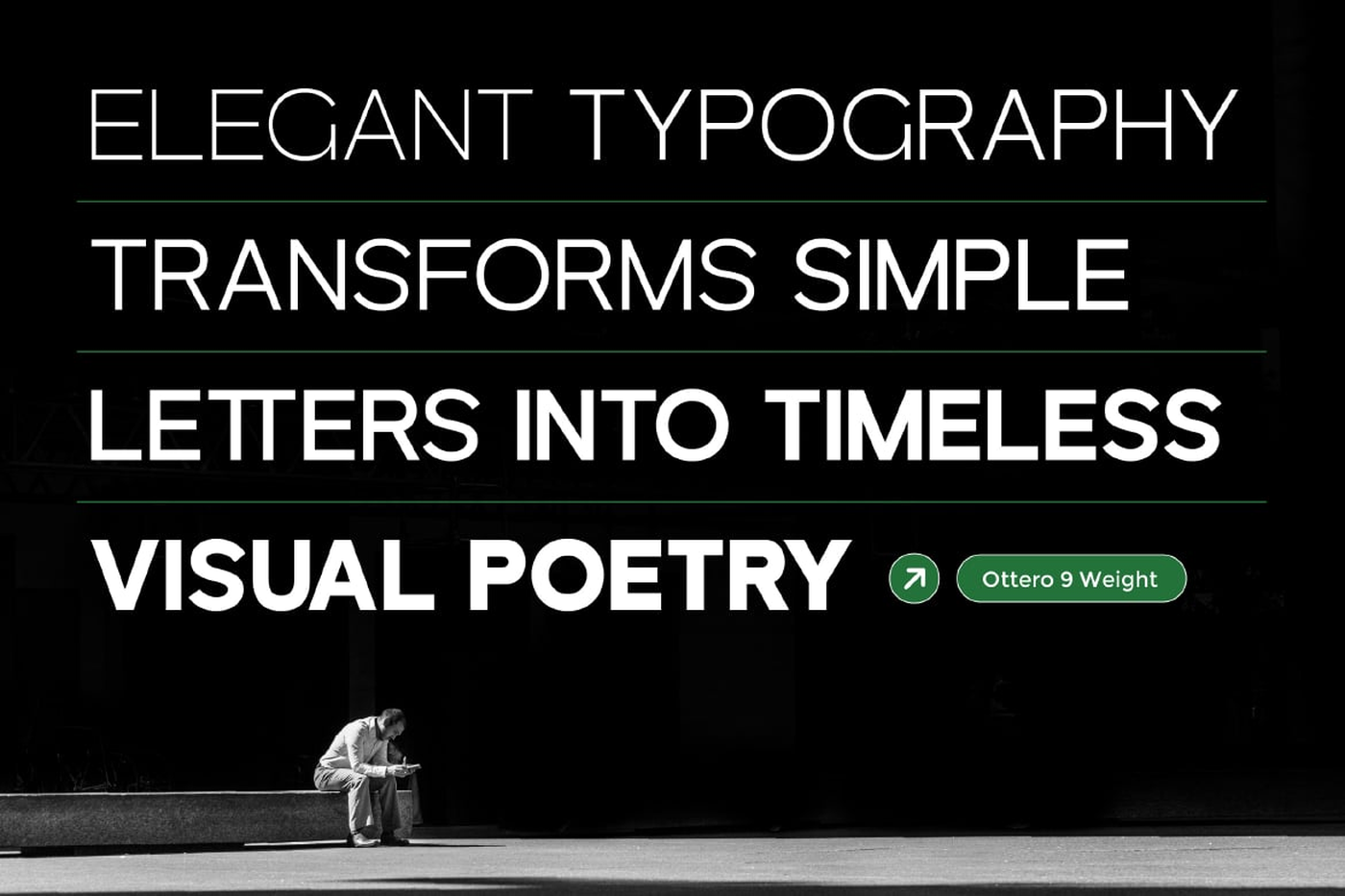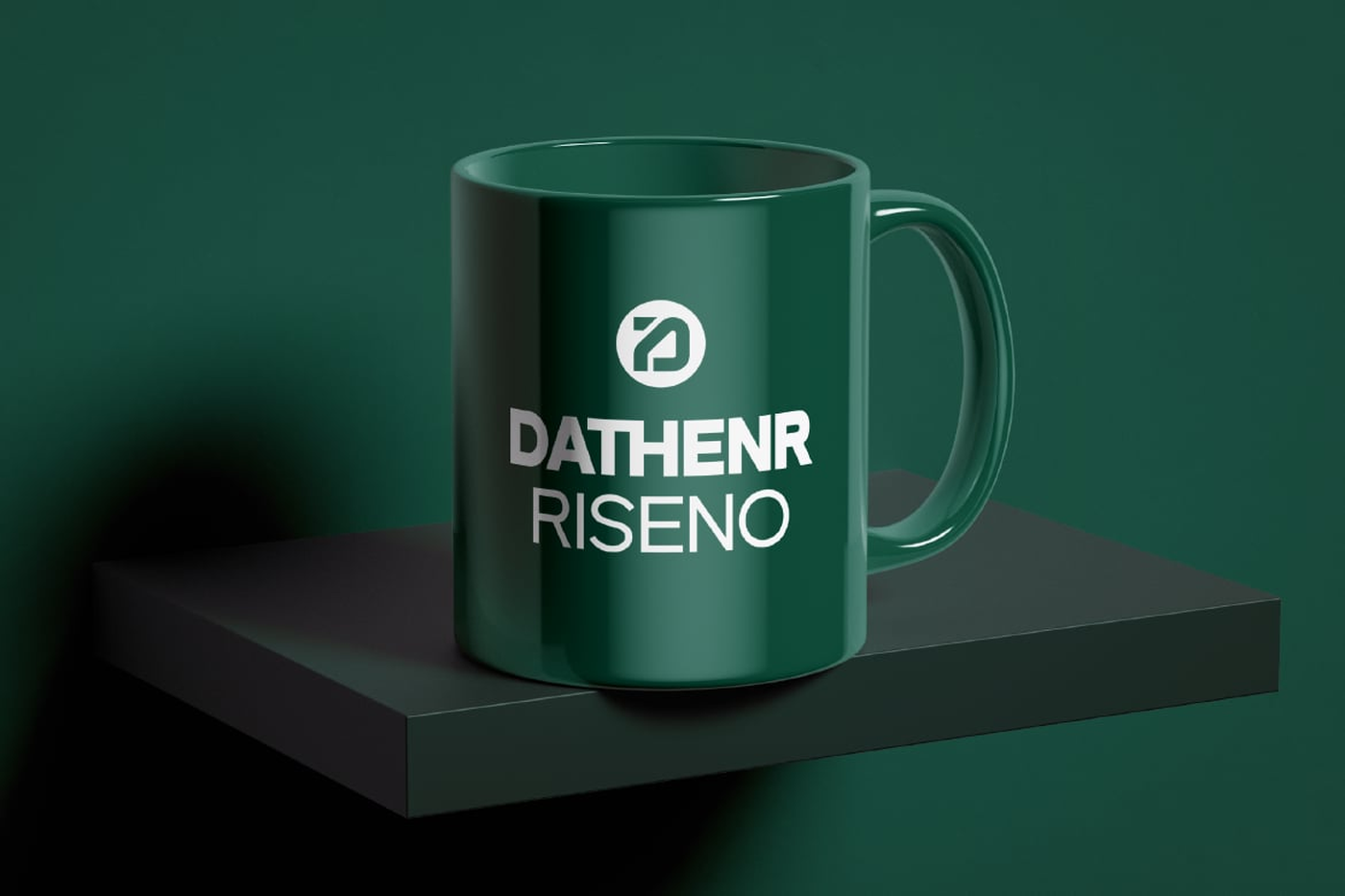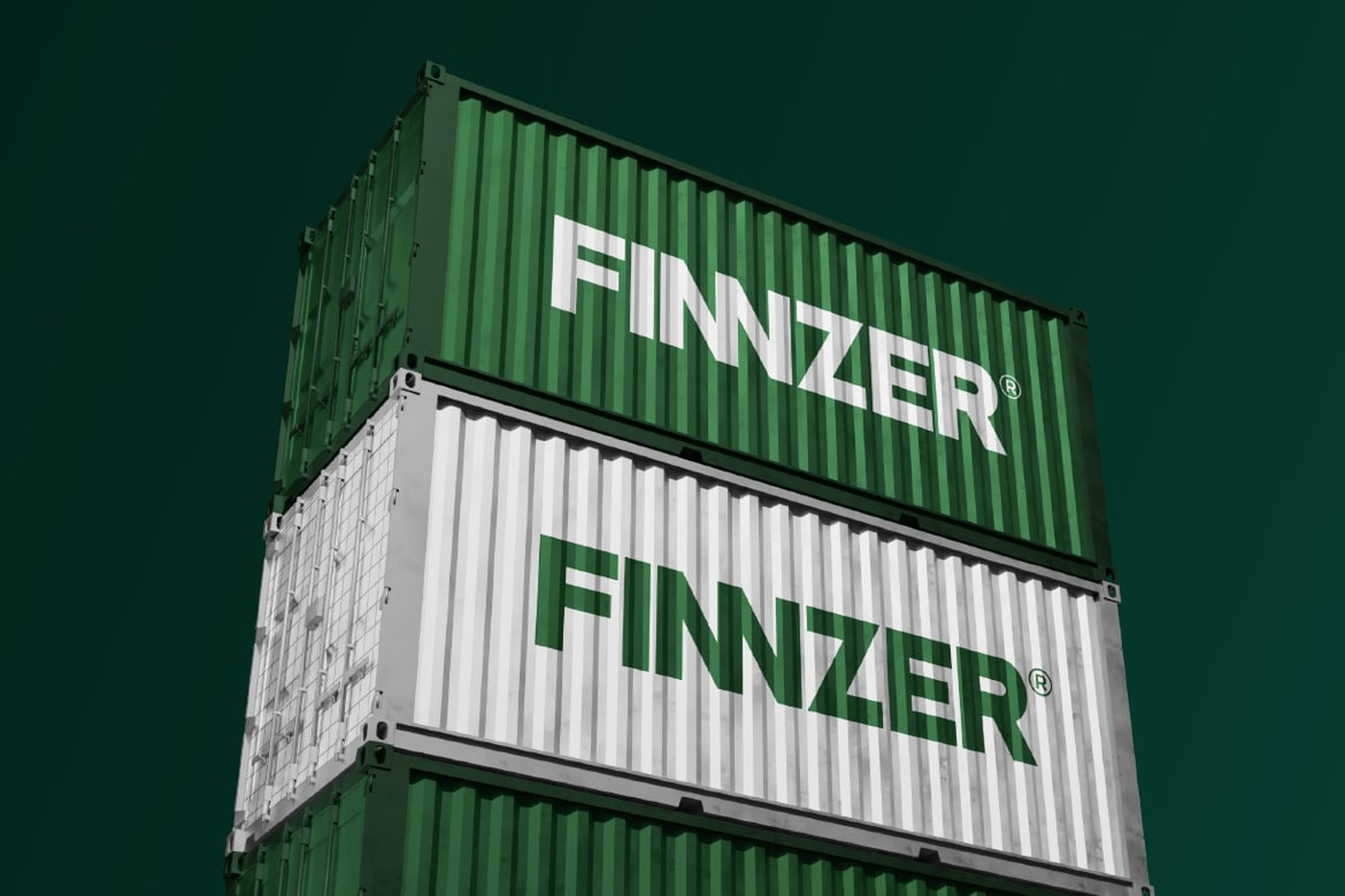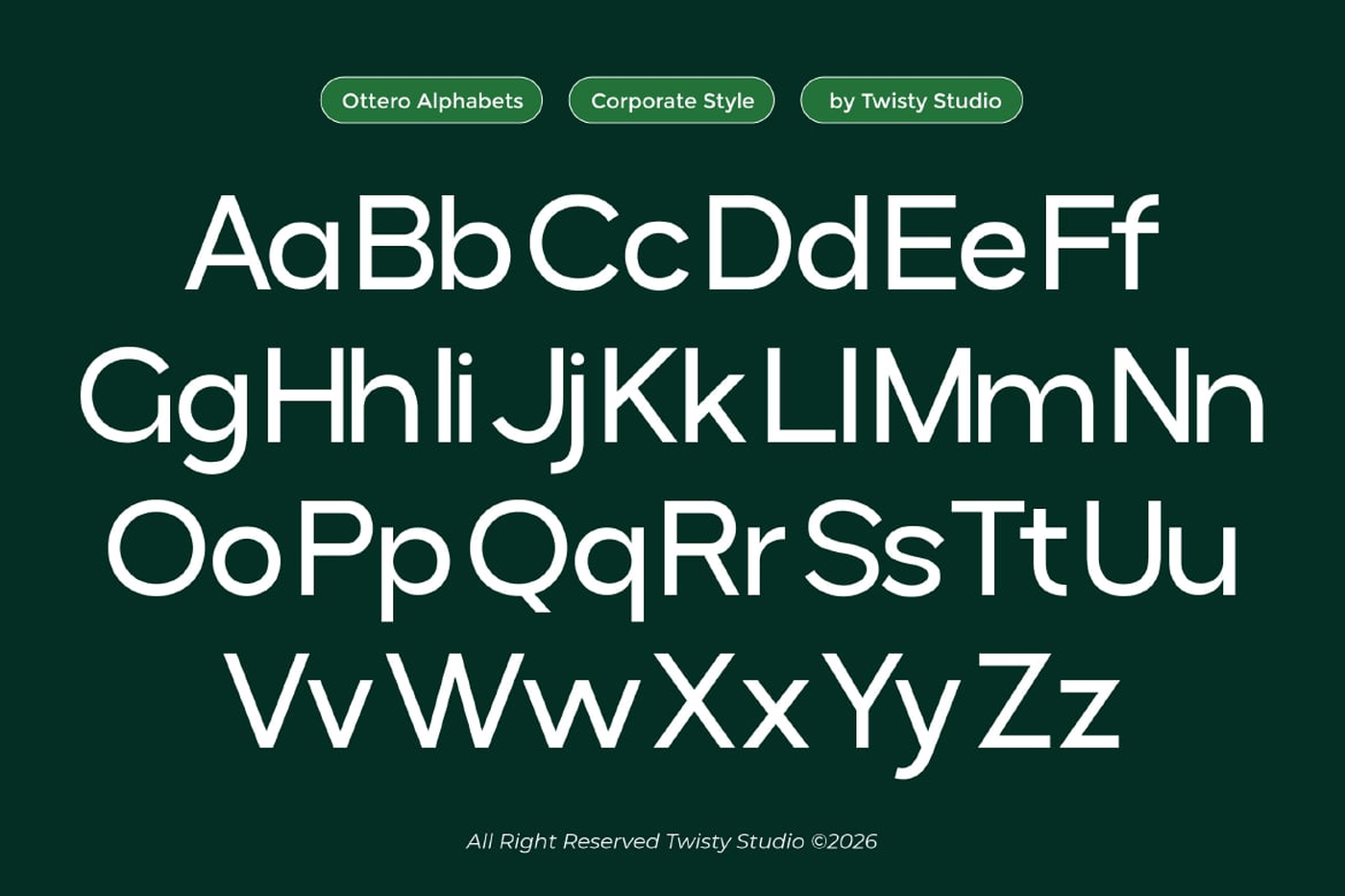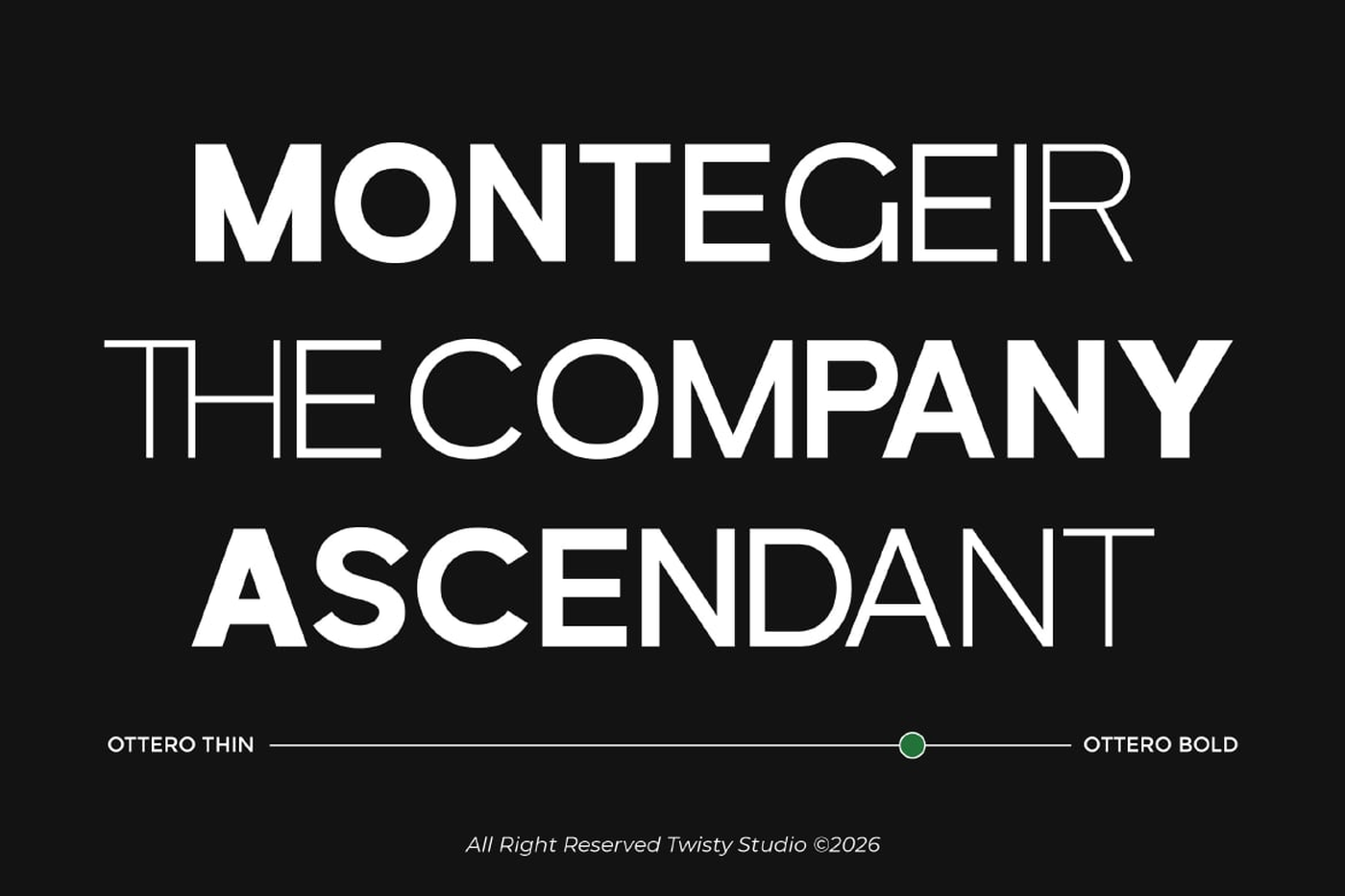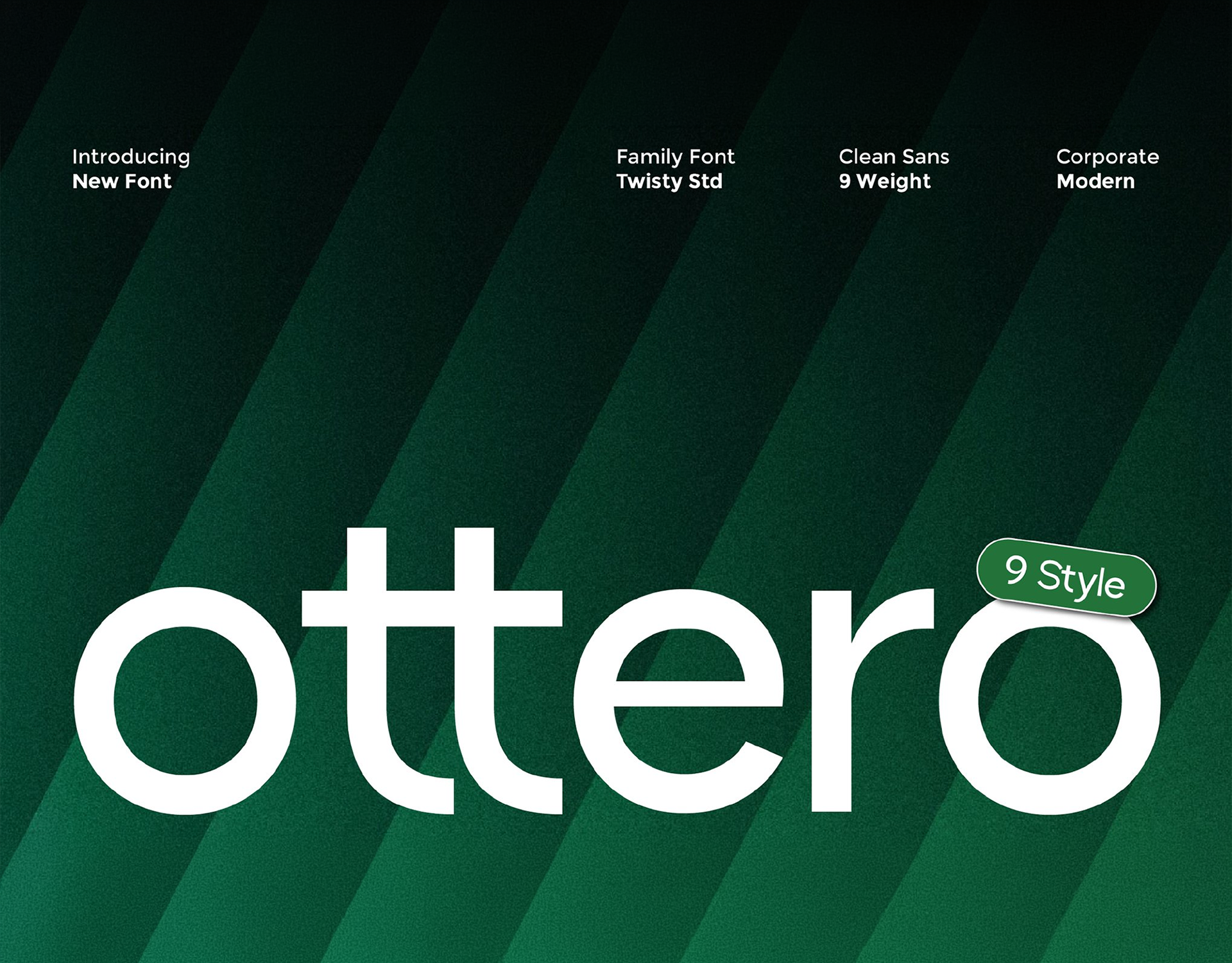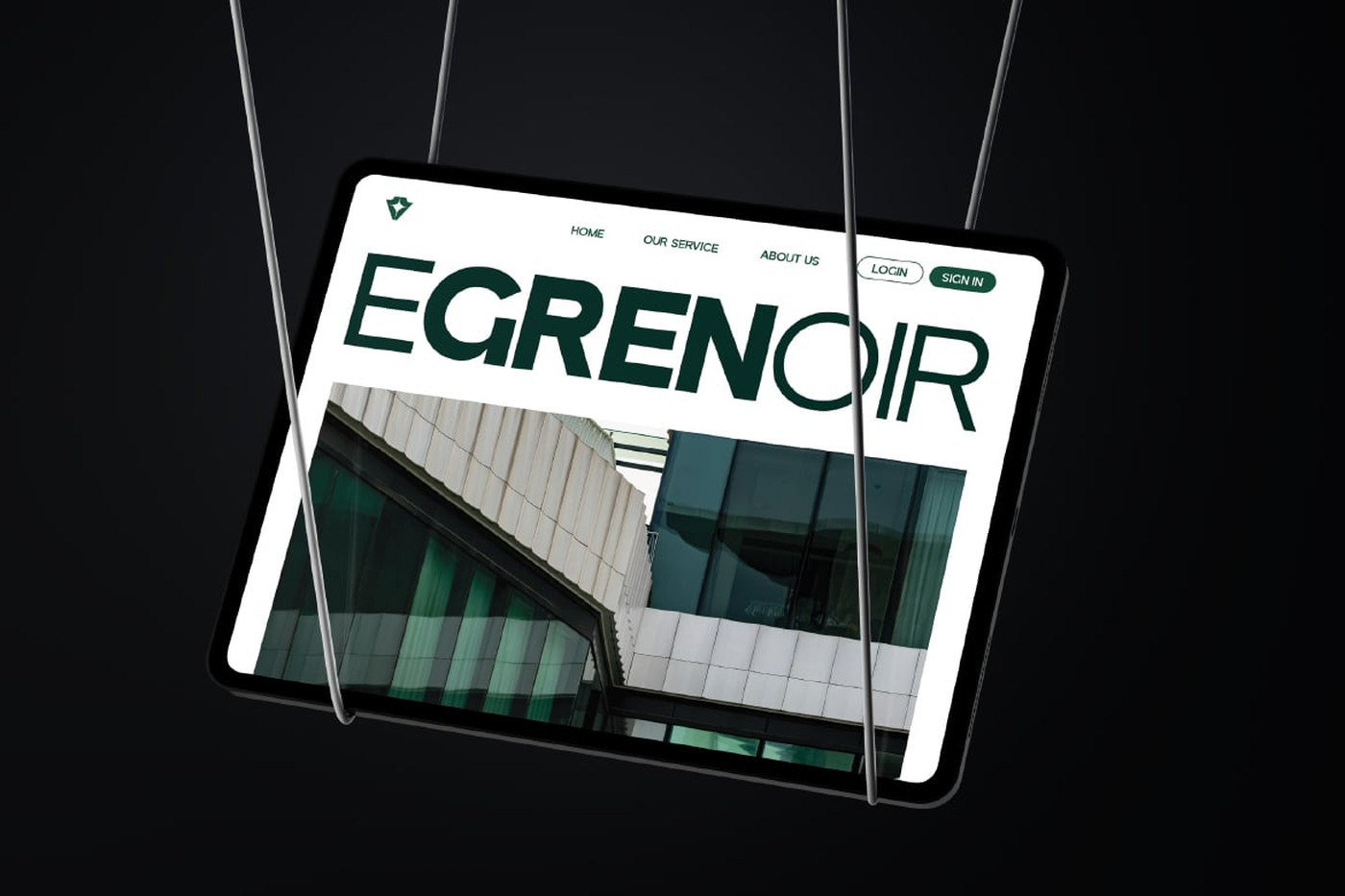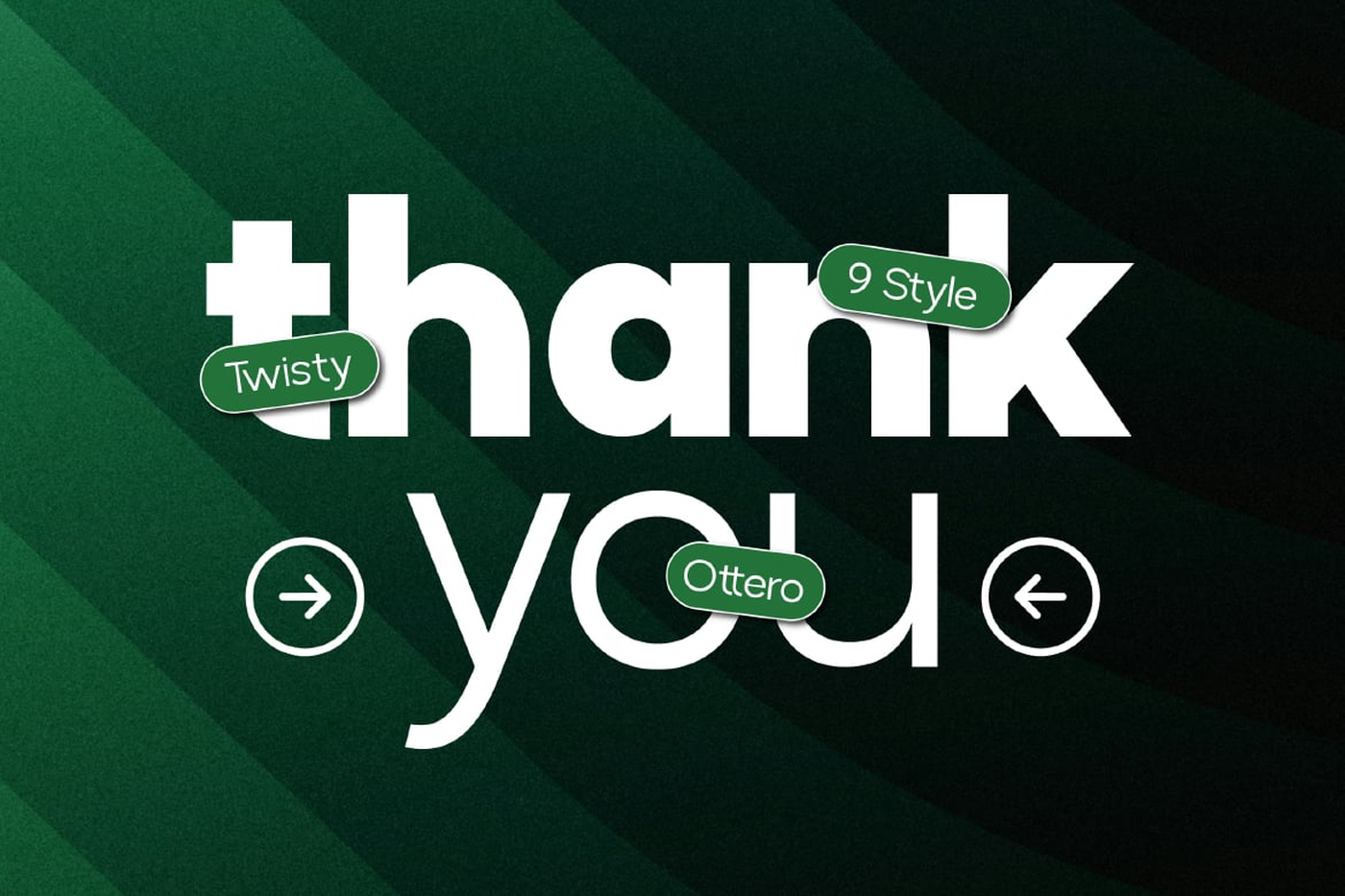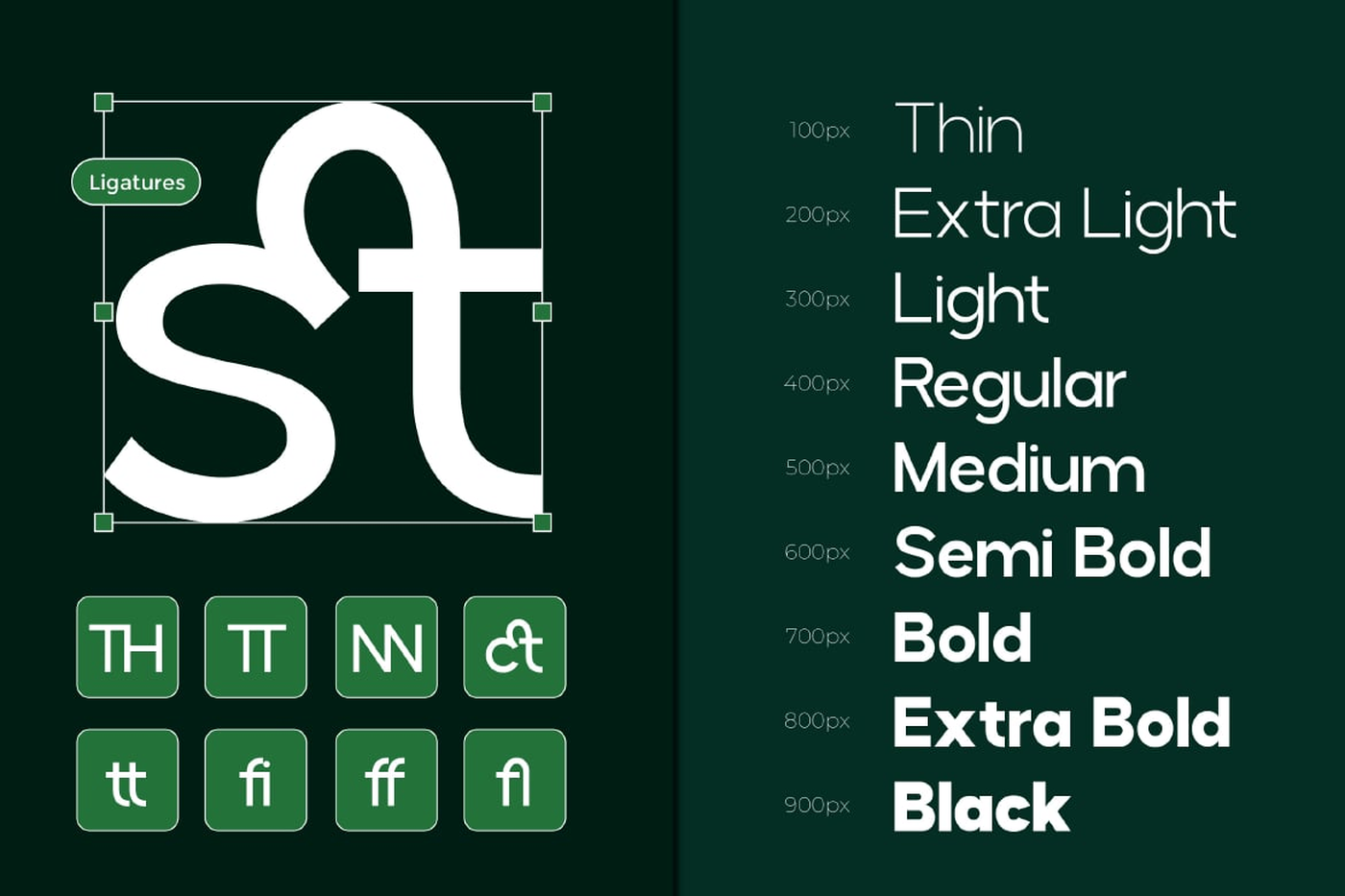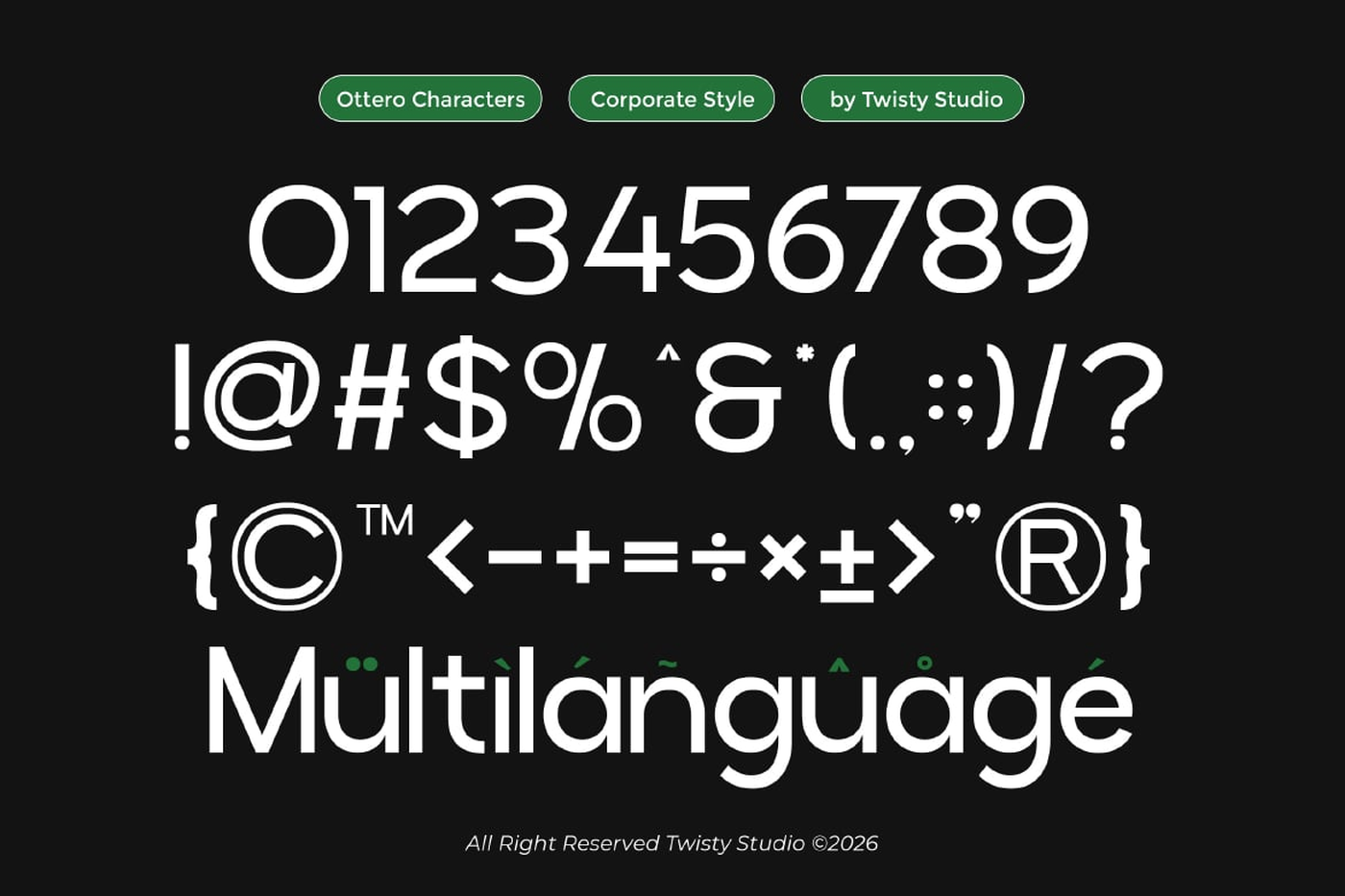
Ottero - Sans Serif Font Family
Ottero is a modern clean sans serif family font crafted to bring simplicity, precision, and versatility into one cohesive type system. With 9 thoughtfully designed styles, Ottero gives you the flexibility to create clear hierarchy and consistent layouts across a wide range of design projects. Defined by its smooth curves, balanced spacing, and minimalist construction, Ottero delivers a fresh and professional look that feels both contemporary and timeless. Its neutral character allows it to blend seamlessly into different visual styles while still maintaining a strong and reliable presence.
Designer: Twisty .std
Font: Ottero